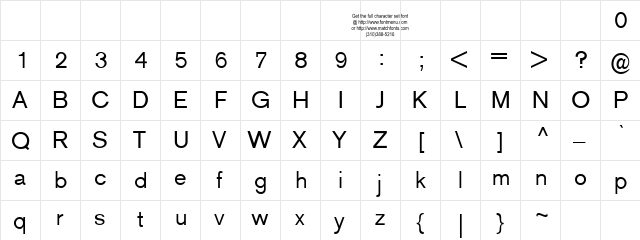
Aguizard Tryout Regular
Design Context for Aguizard Tryout Typeface
Aguizard Tryout is a composed and adaptable typeface that performs quietly and consistently across a wide range of design contexts.